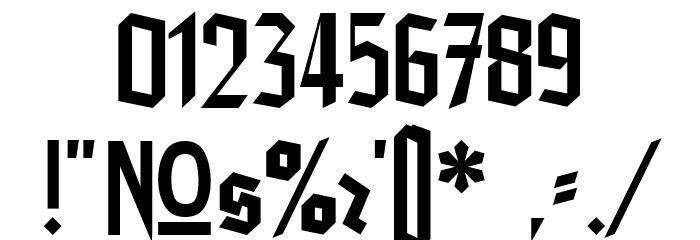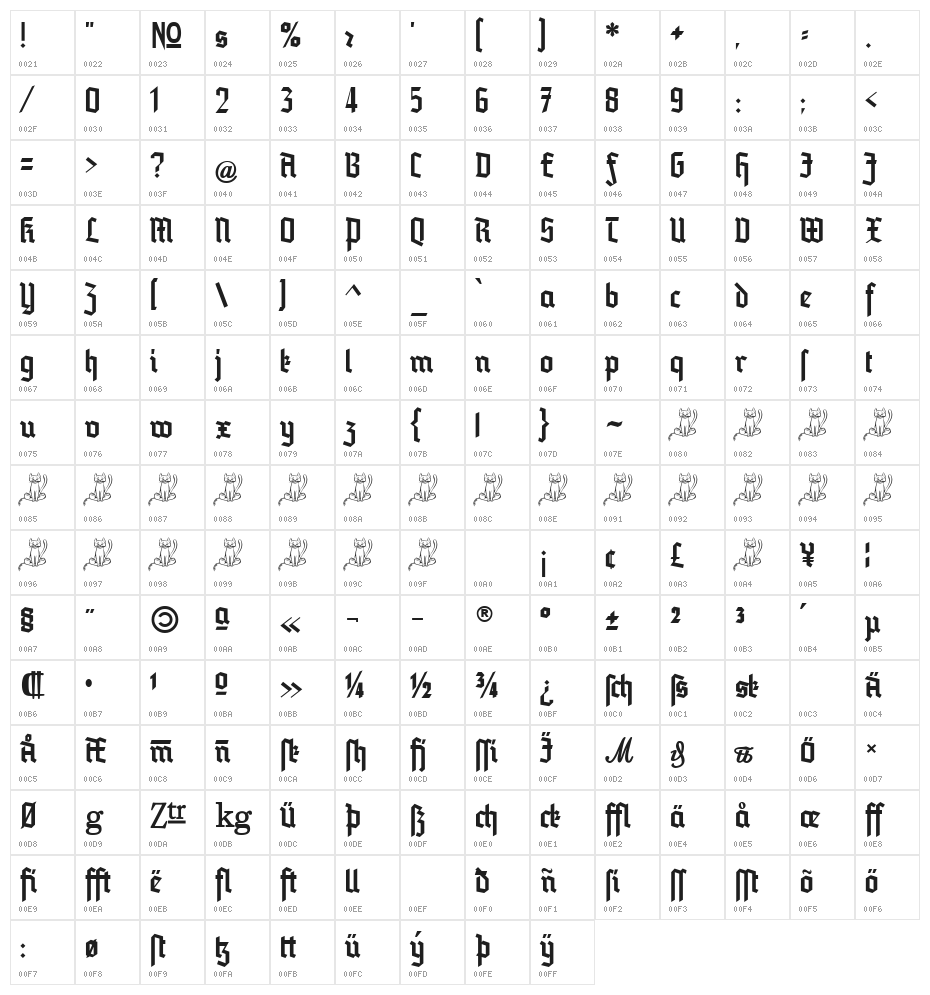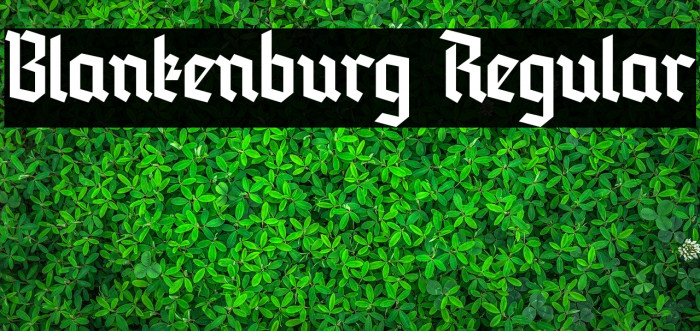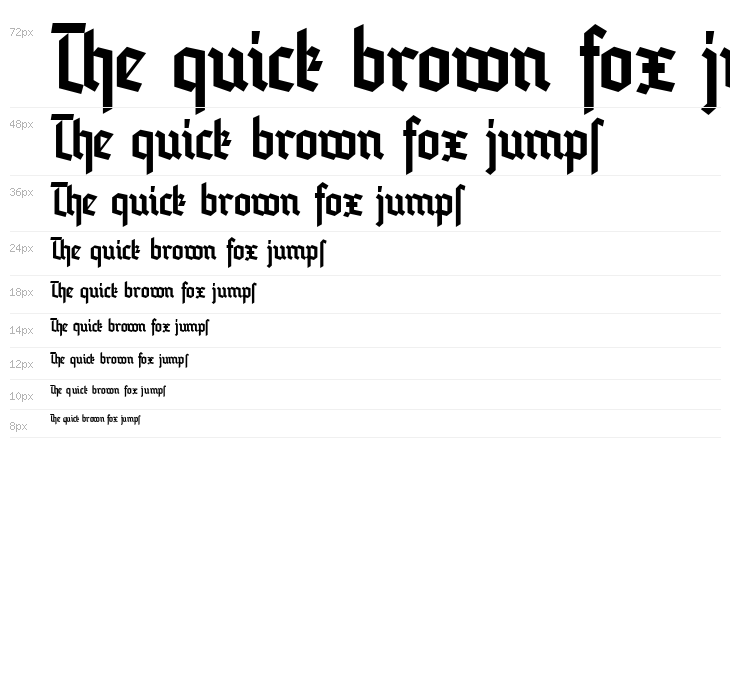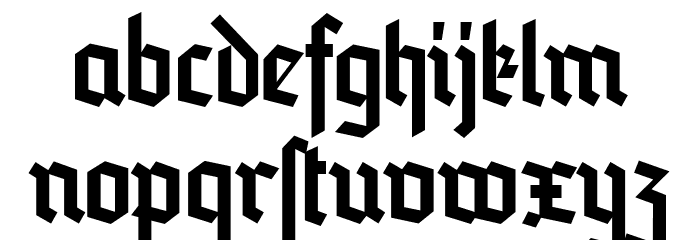
Blankenburg Regular Font
Blankenburg Regular Description
This font features a bold and angular design reminiscent of traditional Blackletter styles, yet with a modern twist. The characters are sharply defined with strong vertical lines and pointed edges, giving it a distinct and commanding presence. The uppercase letters are particularly striking, with intricate details that enhance their visual impact. The lowercase letters maintain the same angular aesthetic, ensuring consistency throughout the typeface. Numbers and special characters are designed with the same attention to detail, making them stand out while remaining cohesive with the overall style. This font is perfect for projects that require a bold and authoritative look.